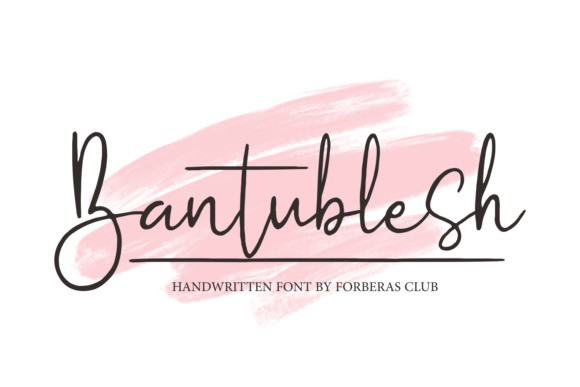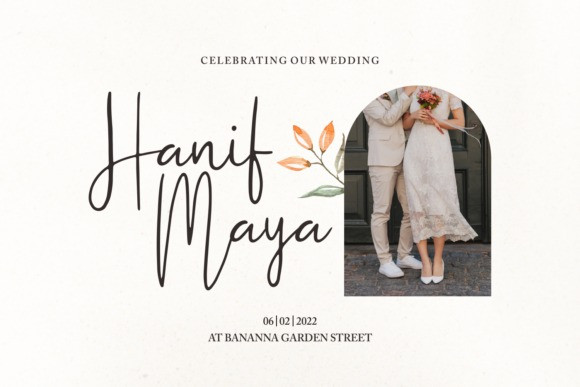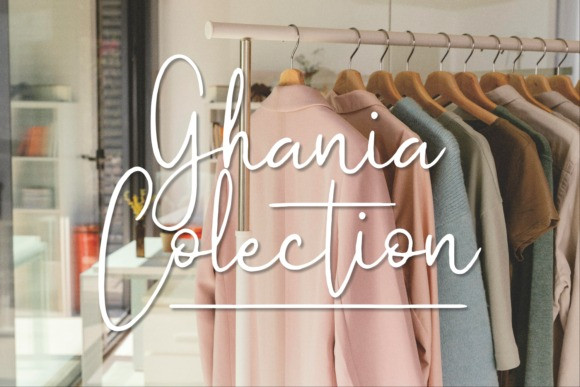
Bantublesh Font
Bantublesh is a fancy and elegant handwritten font that was created to impress your audience and make your branding shine.
Make your projects dance with this wonderful font wherever you use it. It is perfect for headings, logos, ads, printed quotes, packaging, and even your website or social media branding.
Every letter has a unique and beautiful touch that will make your design come alive!